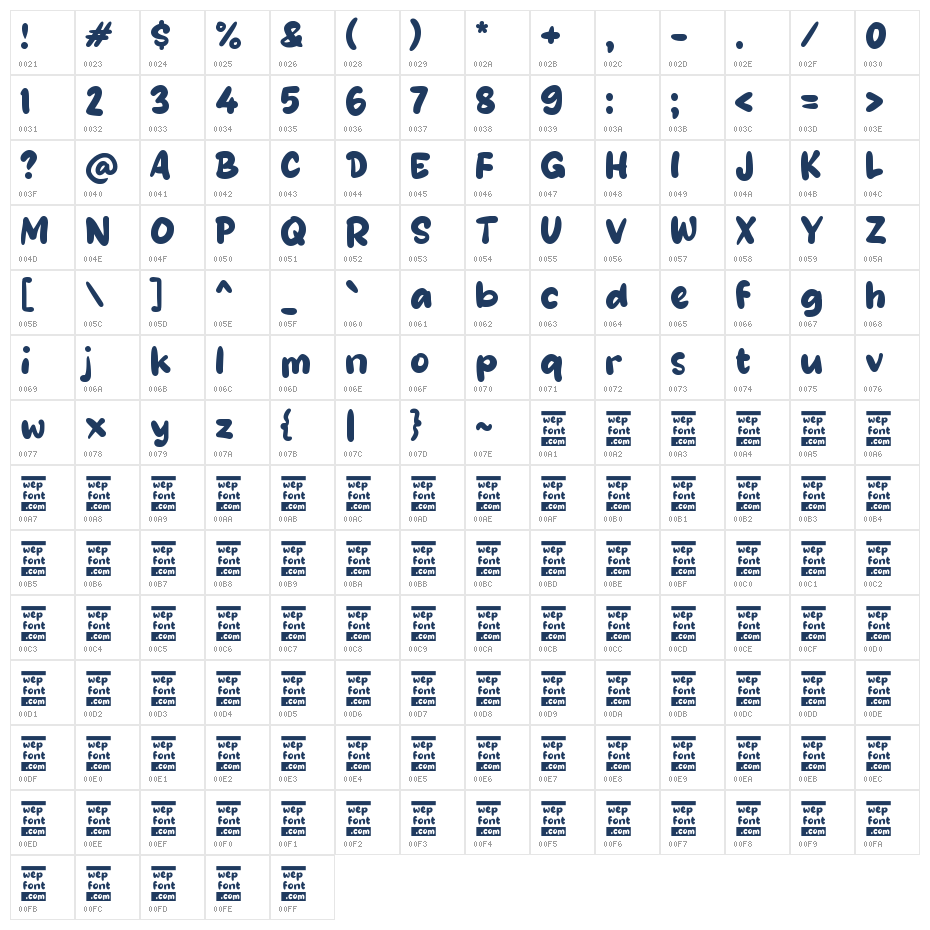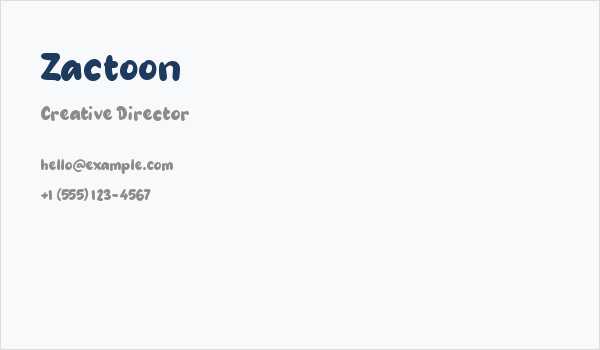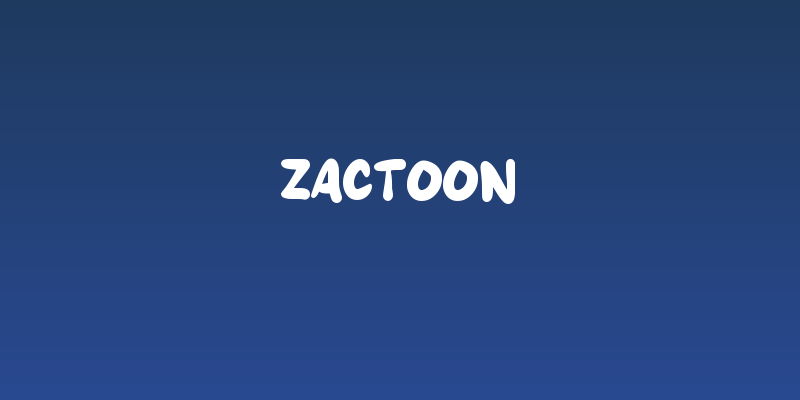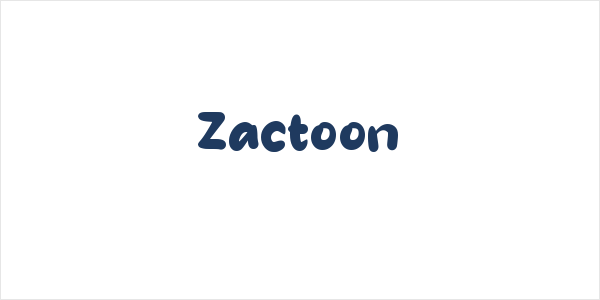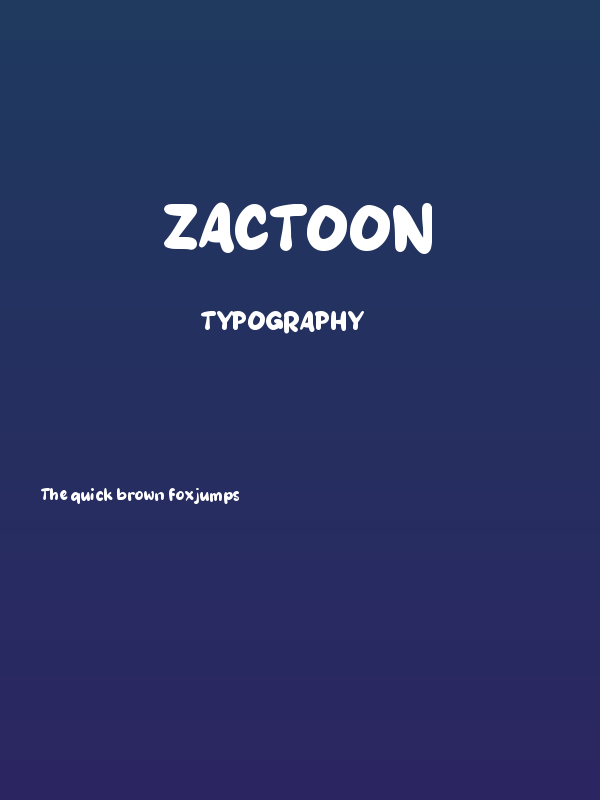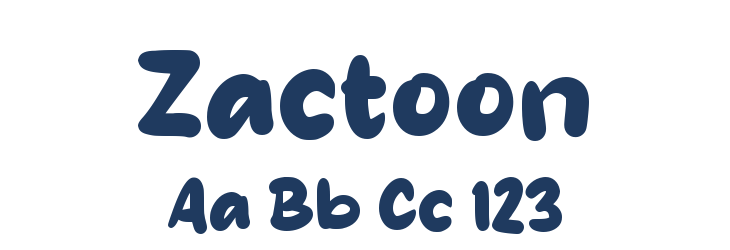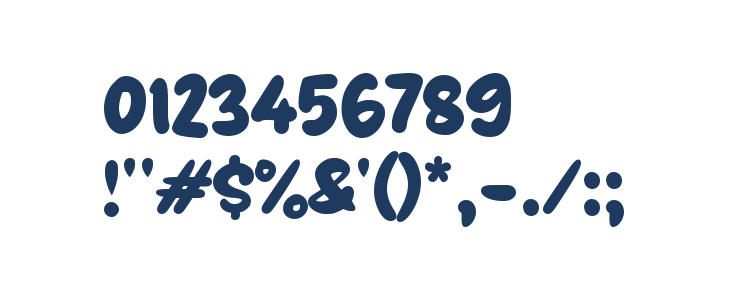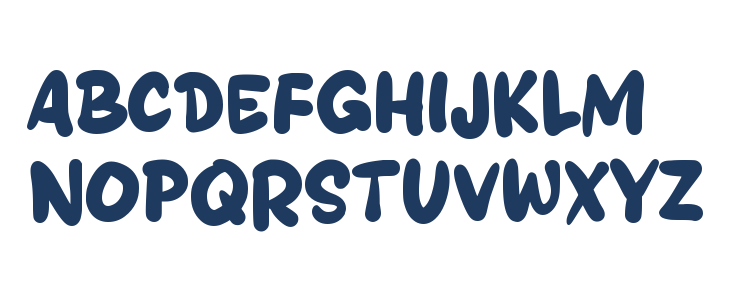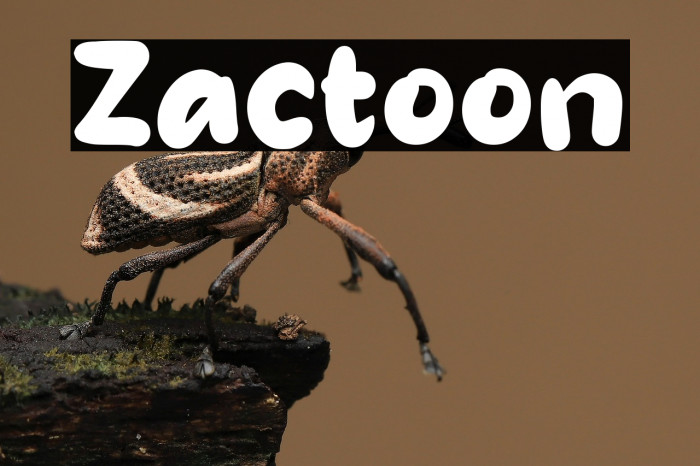
Zactoon Font
Zactoon Description
A playful, rounded, handwritten style font with bold, smooth curves and a casual appearance.
| Overall Style | Casual, Playful, Friendly |
| Use Case | Headlines, Posters, Children's materials, Logos |